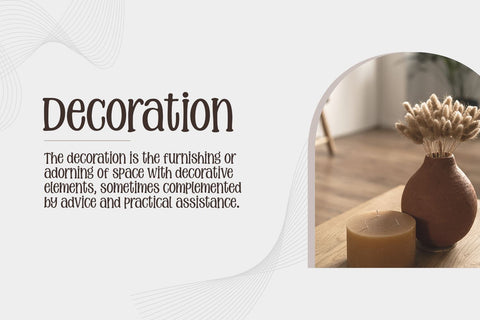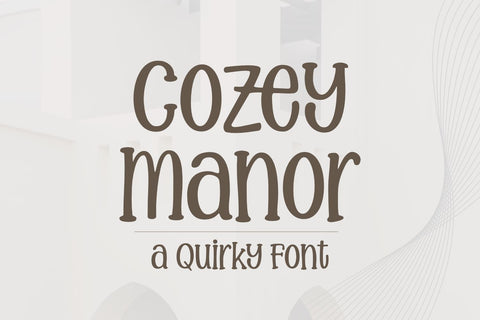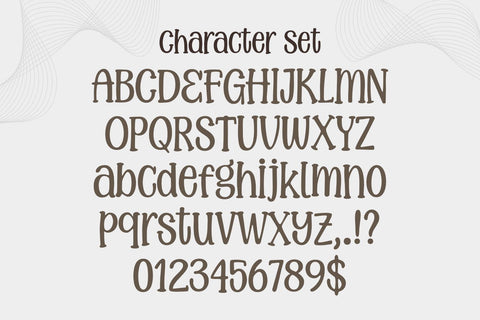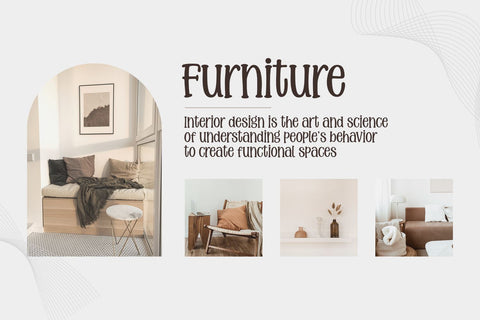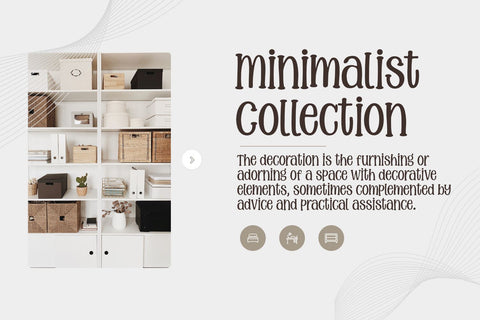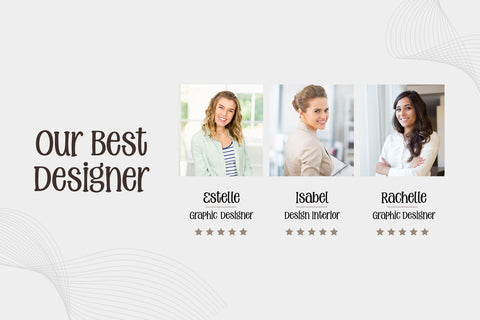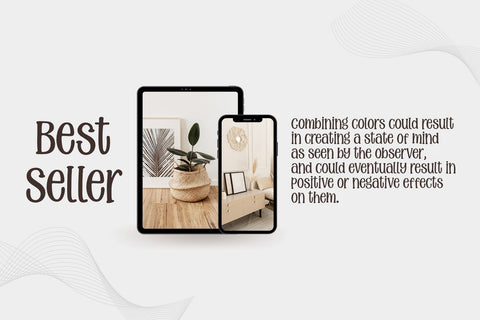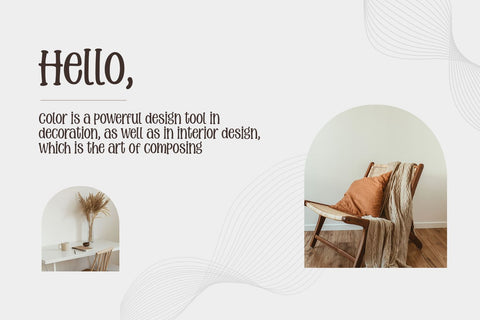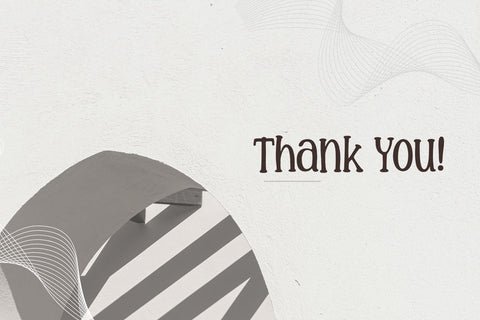
Cozey Manor - a Quirky Font
Cozey Manor is a cute, quirky and charming display font. Whether you use it for cartoon related designs, children games or just any creation that requires a lovely touch, this font will be an amazing choice.